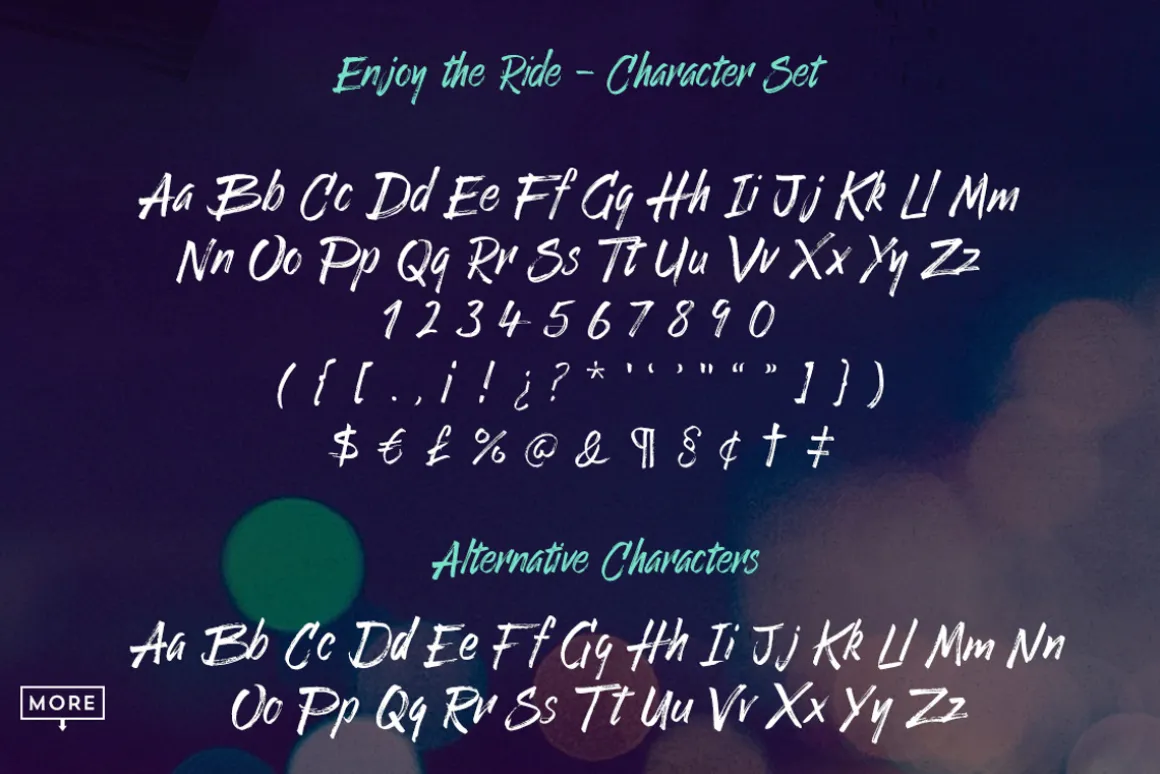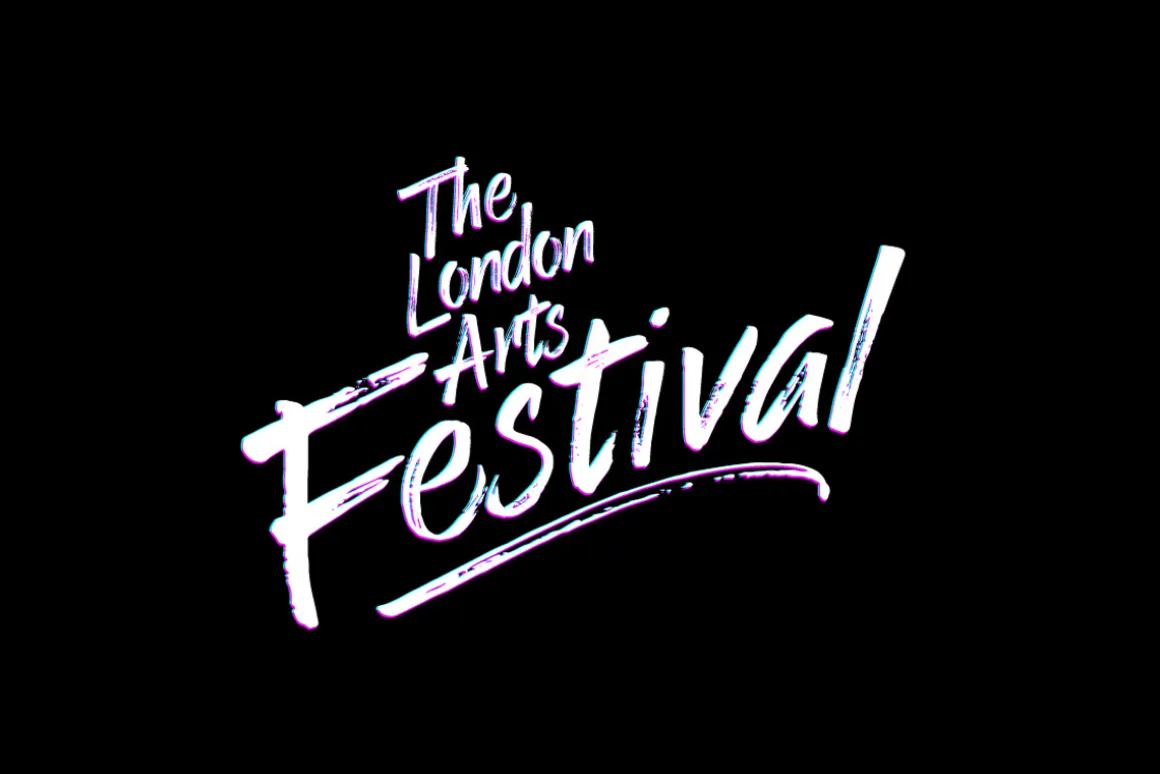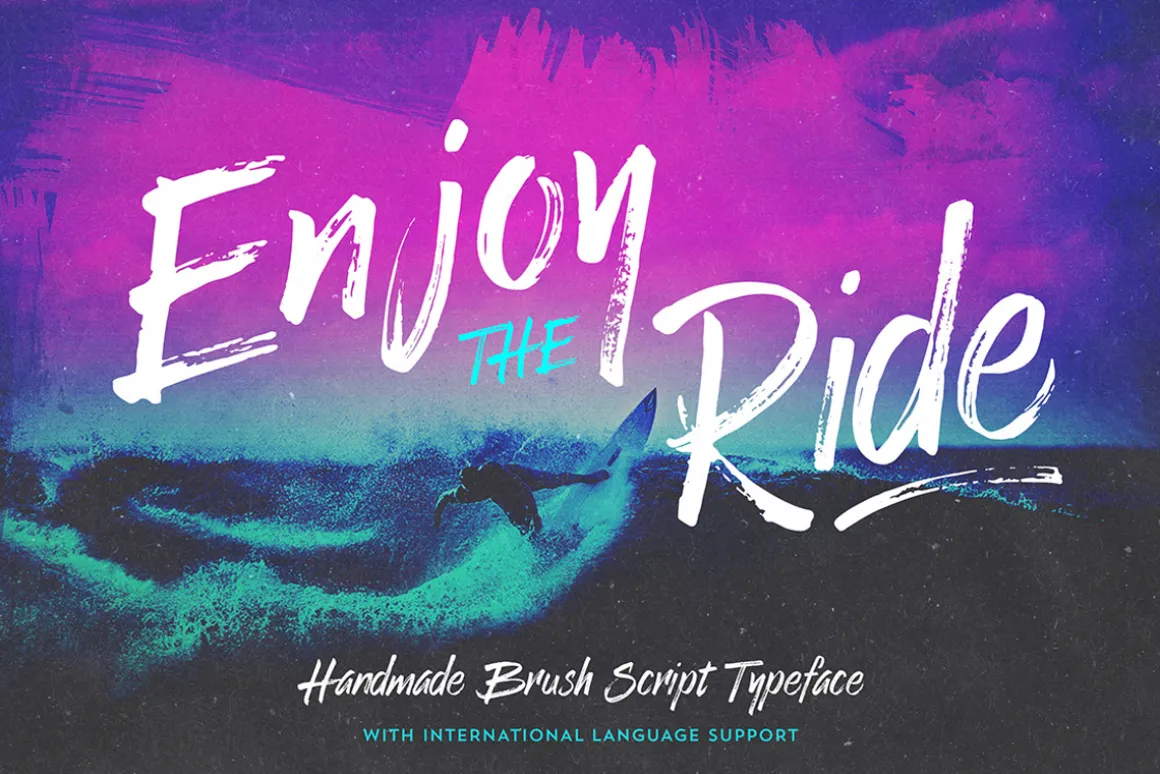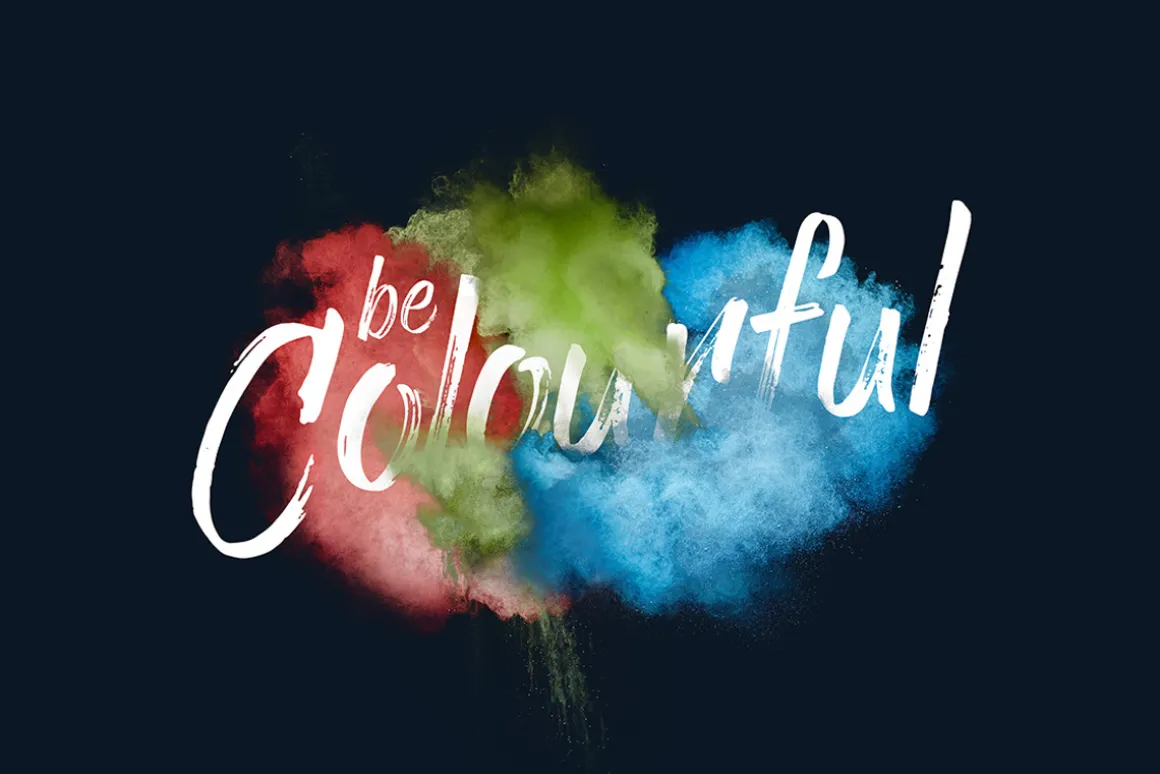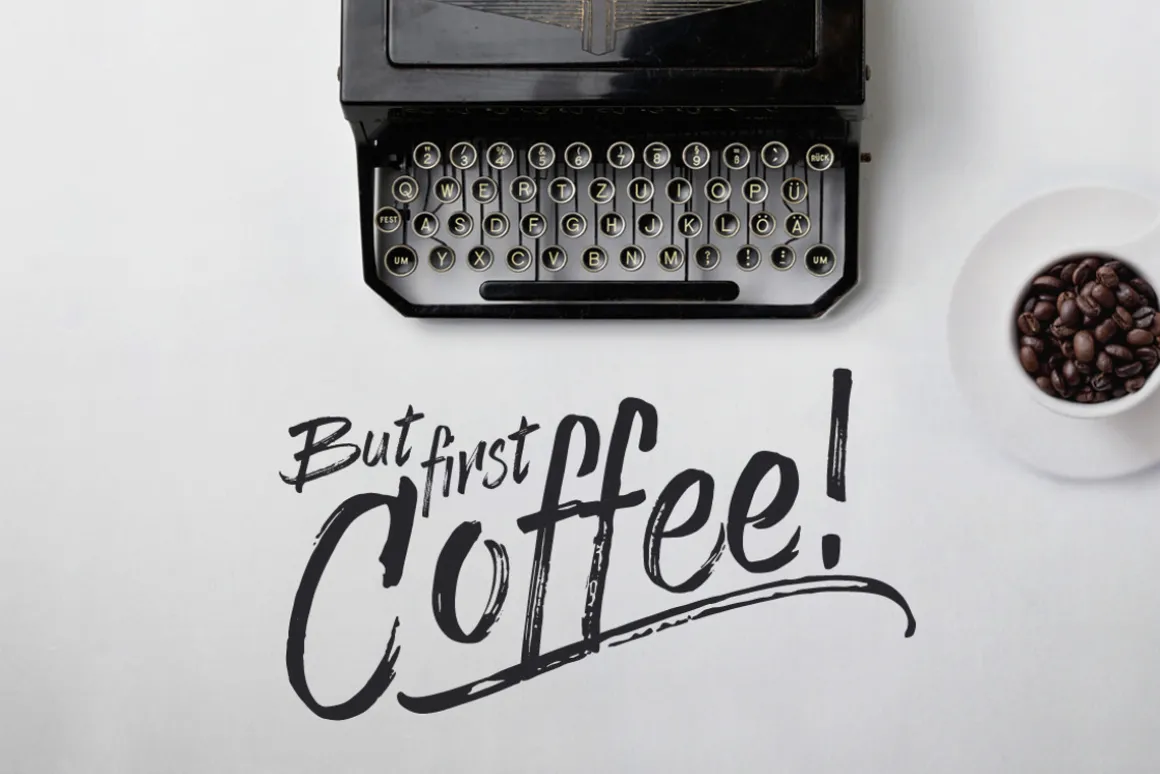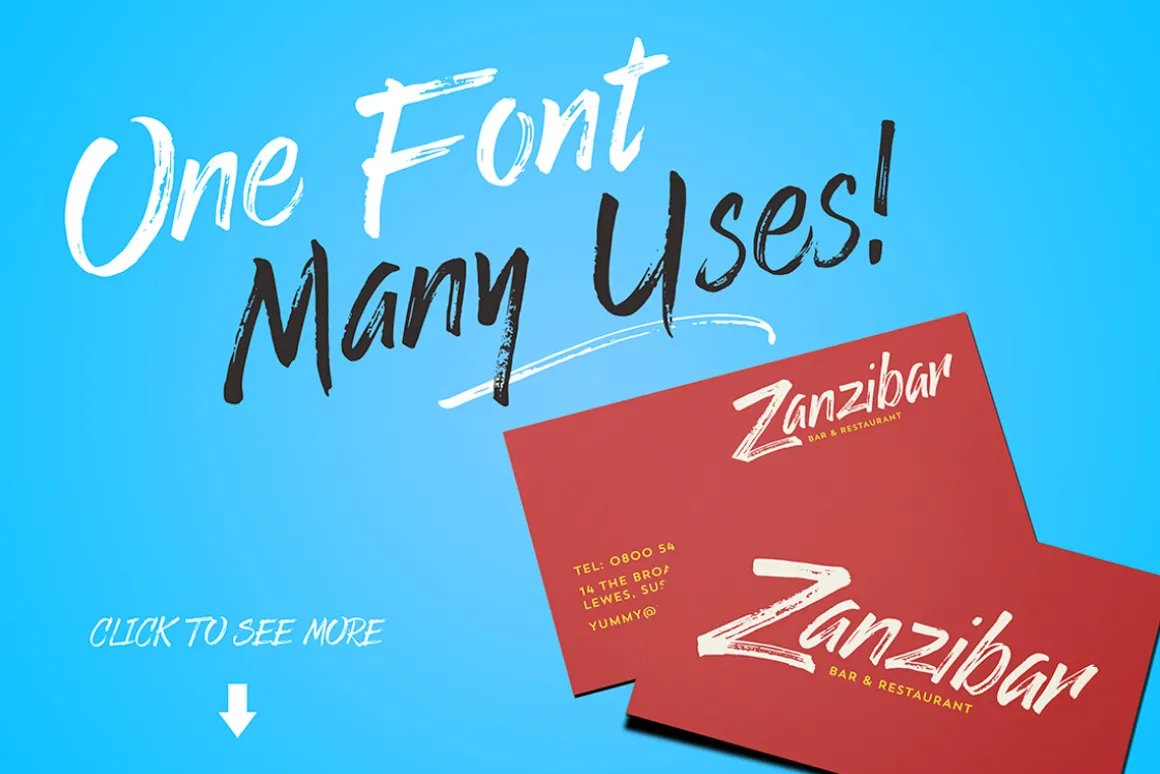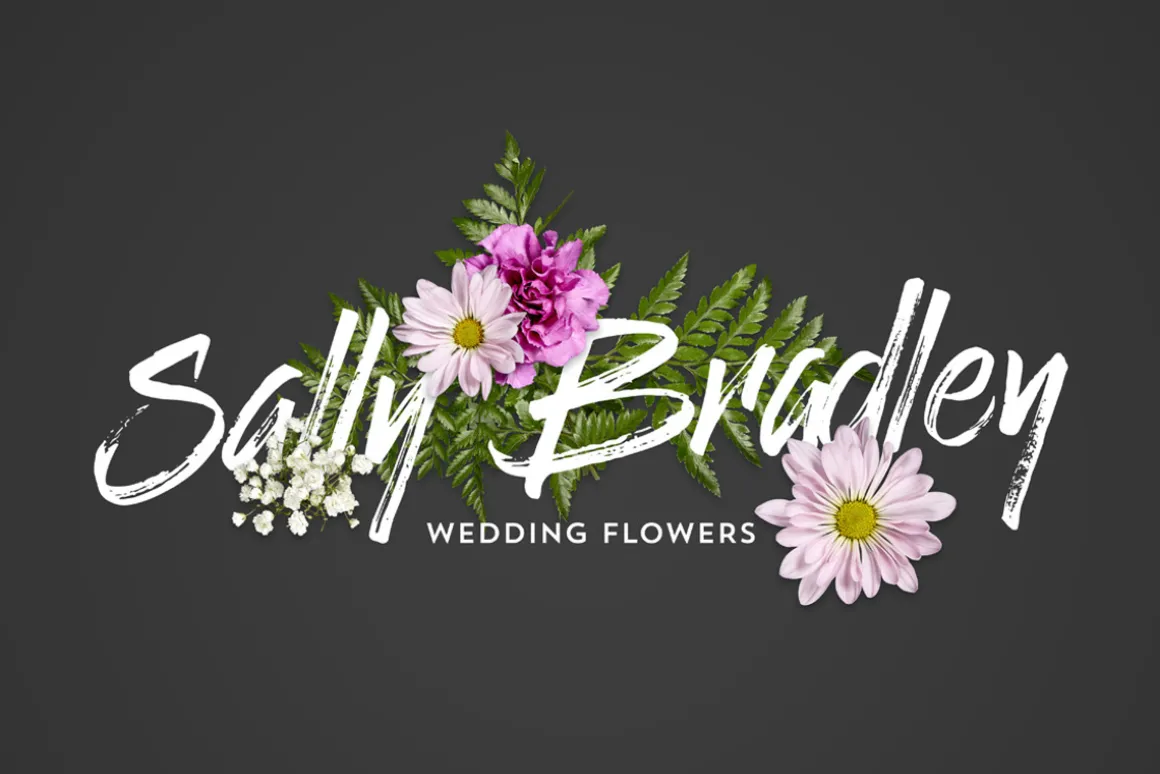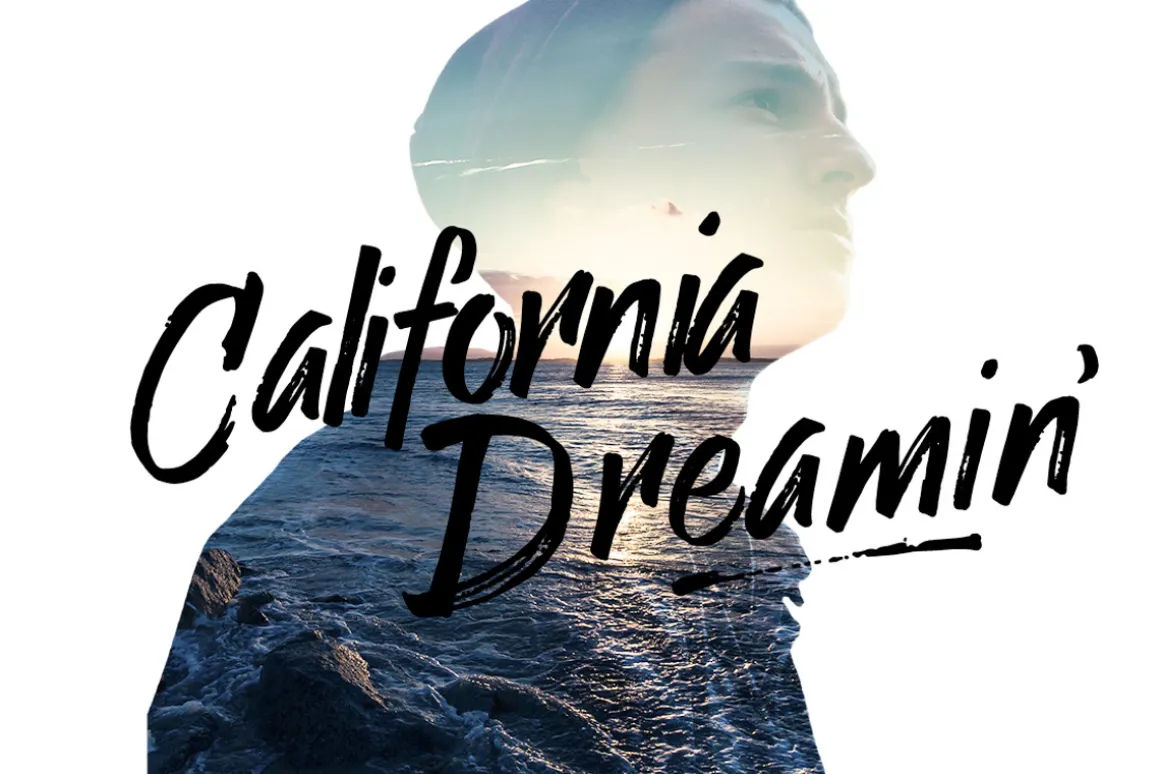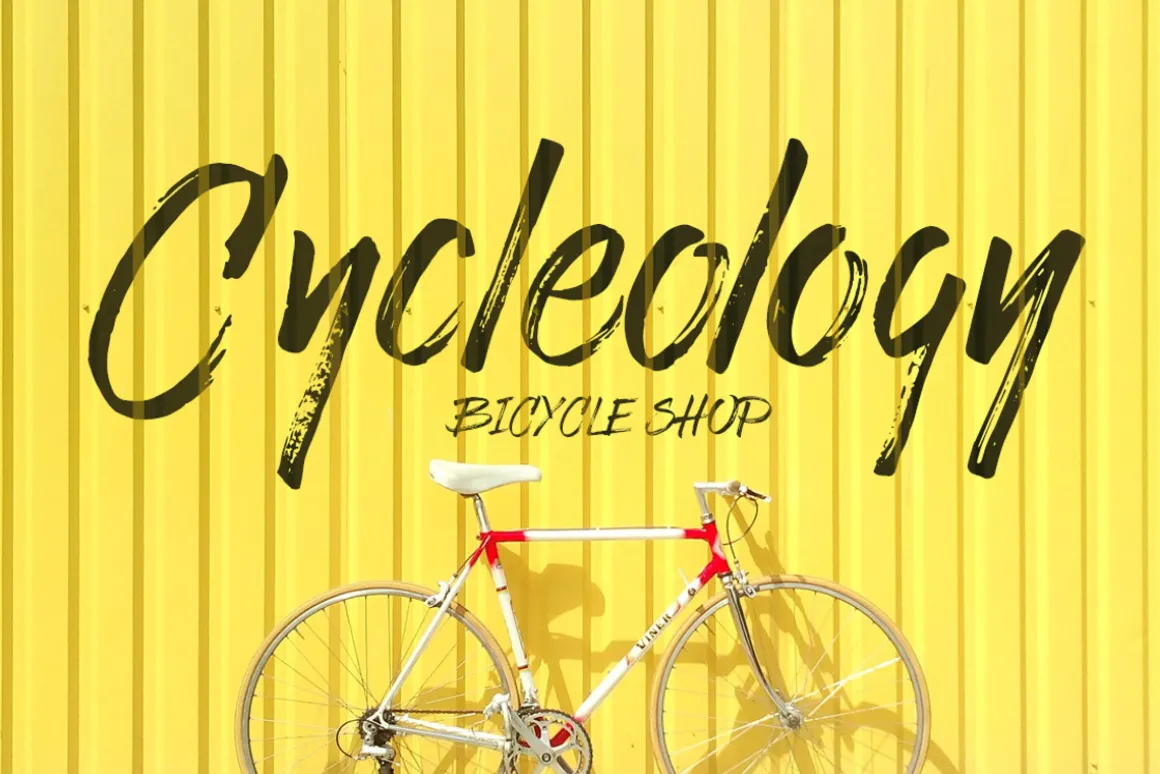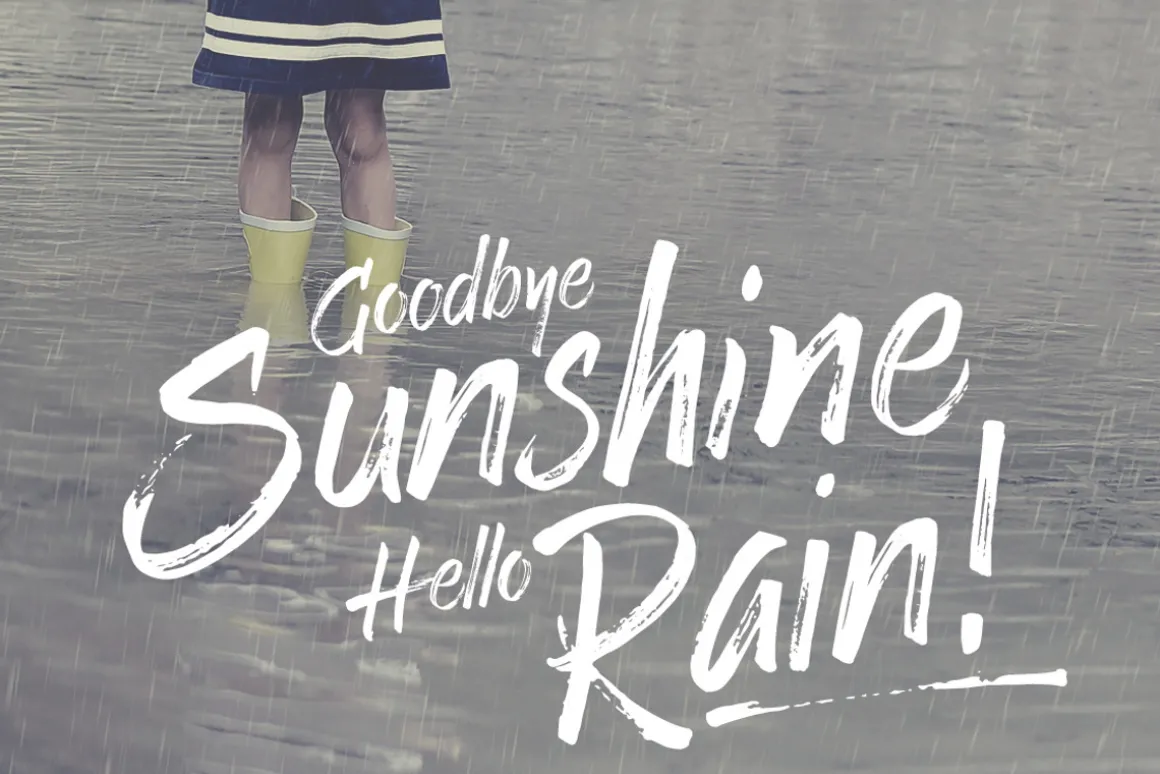
Enjoy the Ride is a brush script typeface made to give a realistic hand drawn look to your typographic work. Use Enjoy the Ride typeface to make logo marks, posters, t-shirt designs or anything that requires that personal touch. To add extra value to the font I’ve made sure that it also works amazingly when you use all the characters in uppercase.
It also come with 26 swashes to add an extra element to your work.
Enjoy the Ride comes with:
- Language support
- Alternative characters
- Contextual alternatives